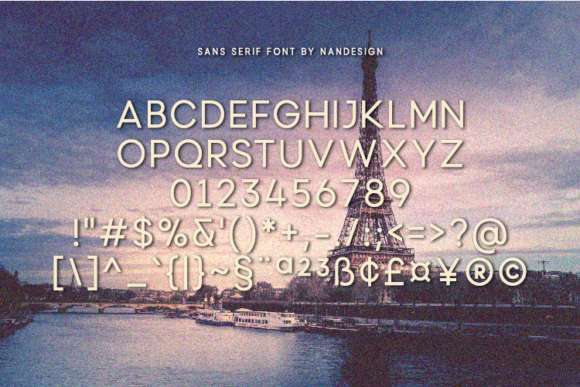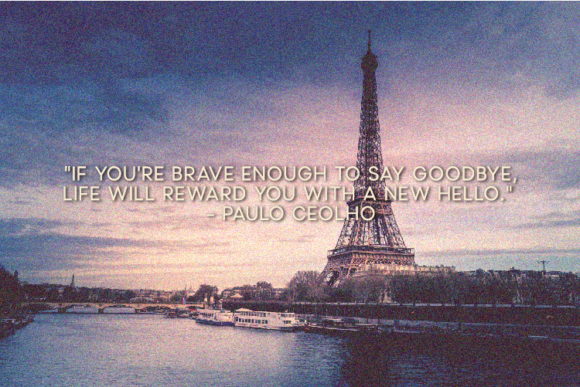
Introduction to Pure Paris Font
Pure Paris is a stunning sans serif designed to complement every project you’re working on.
Use it to create beautiful headings, gorgeous invitations, stunning logos, and so much more It is perfect for displays, headers, invitations, save the dates, weddings, and so much more.